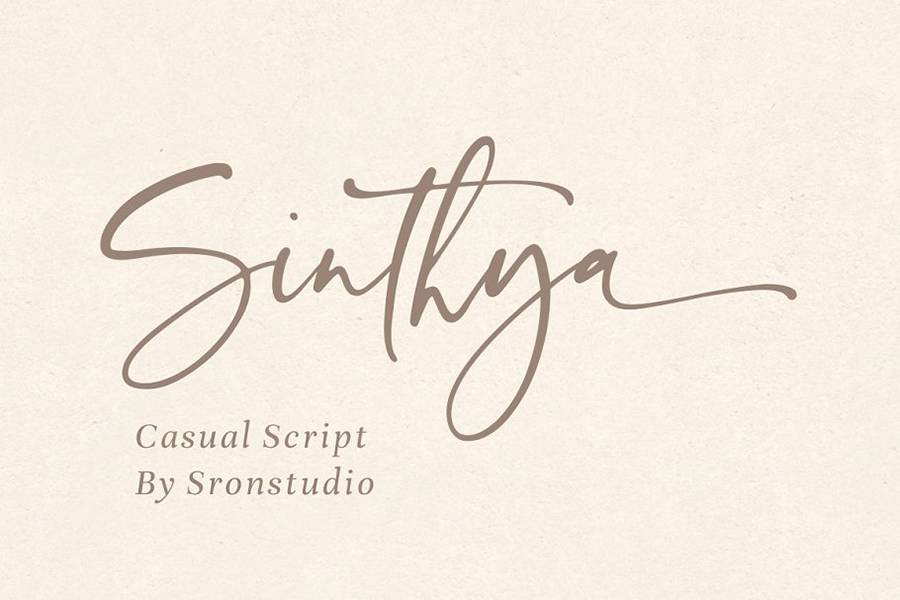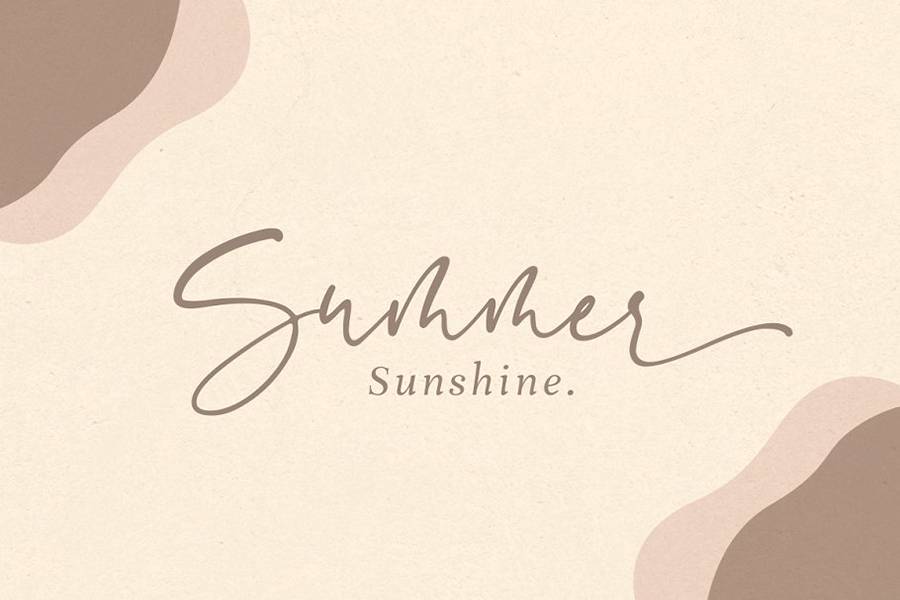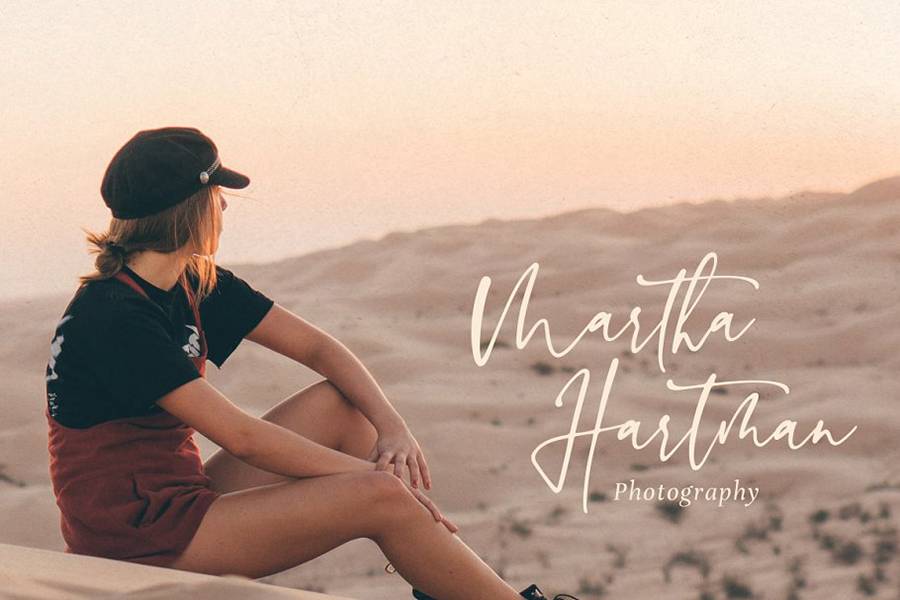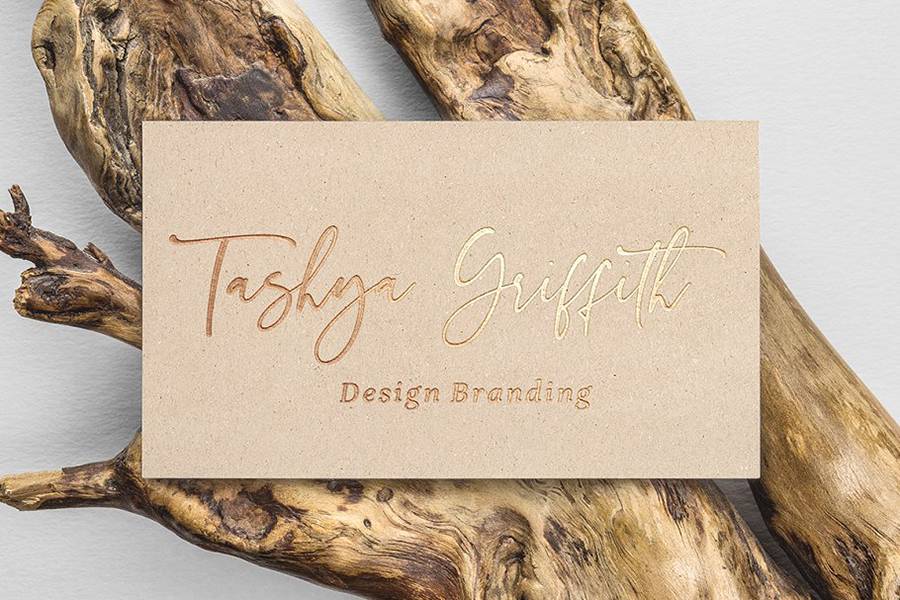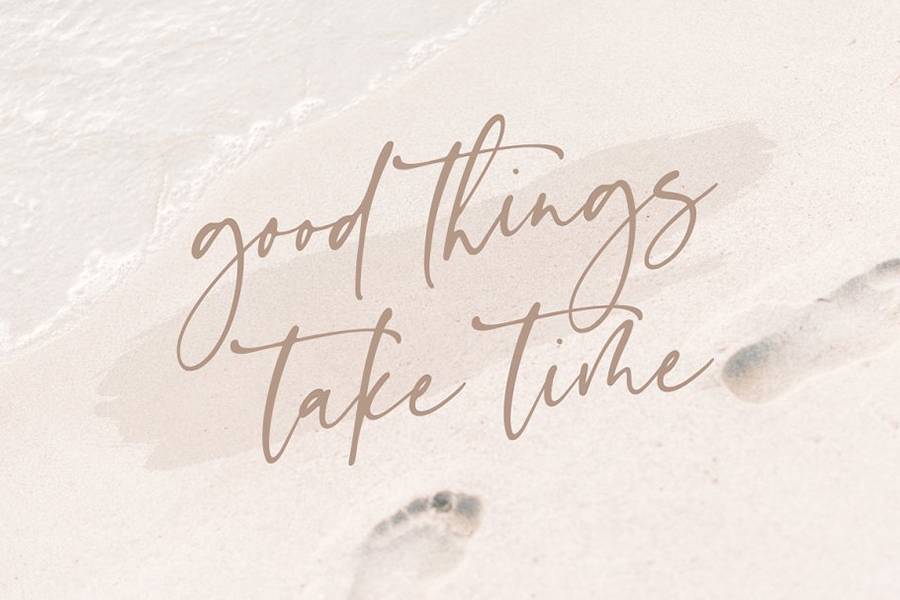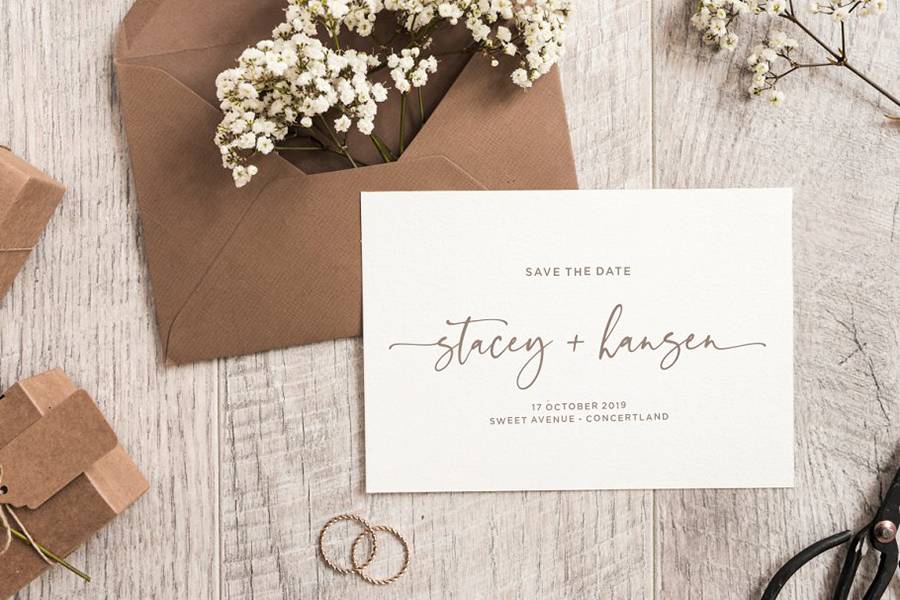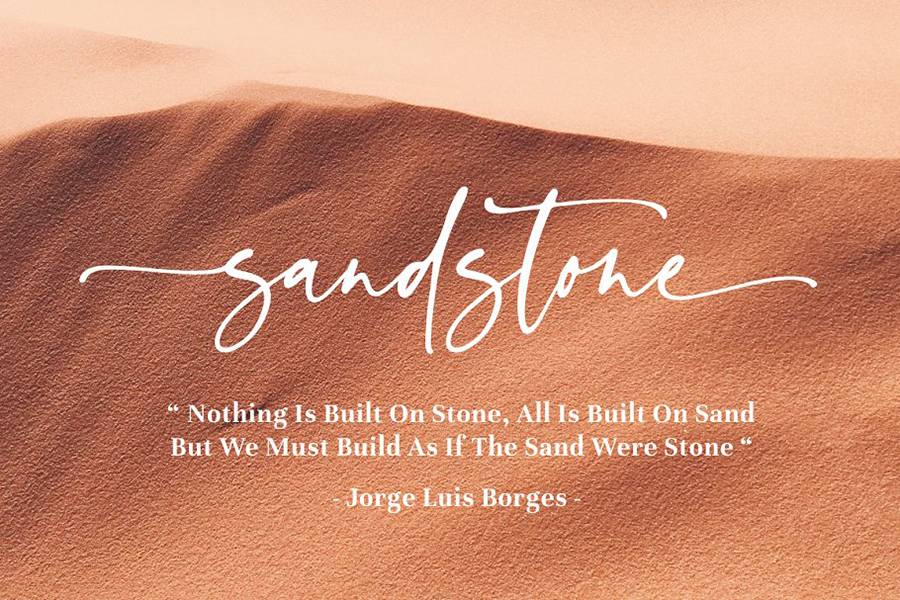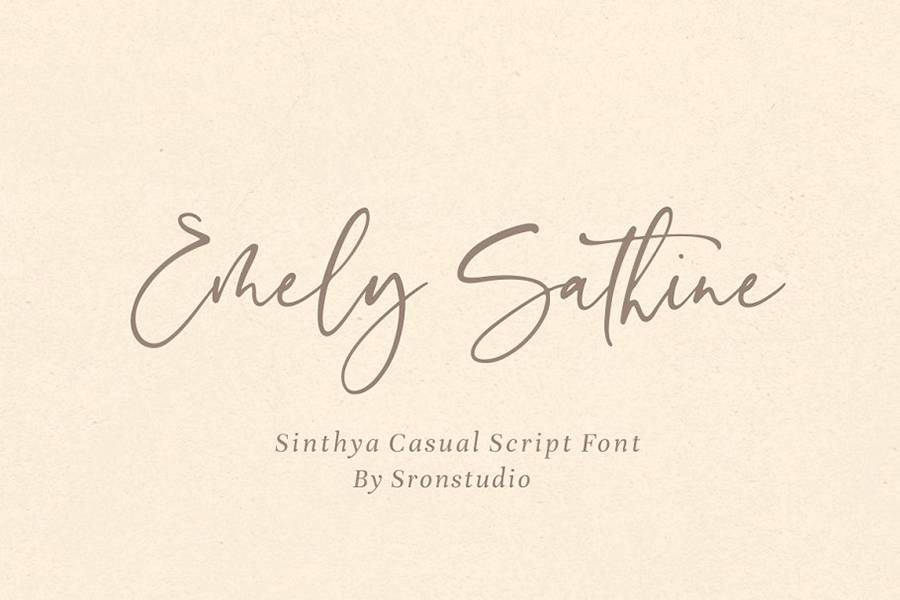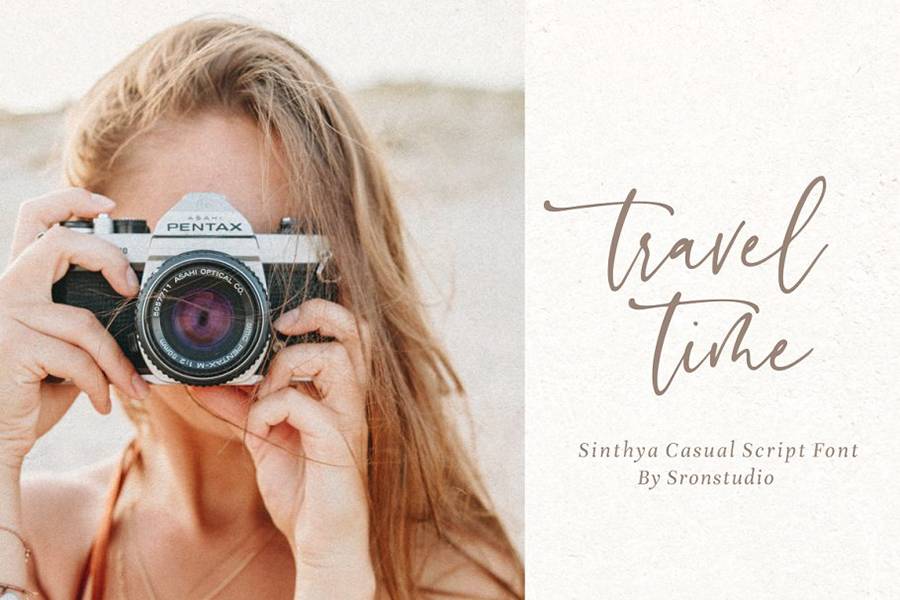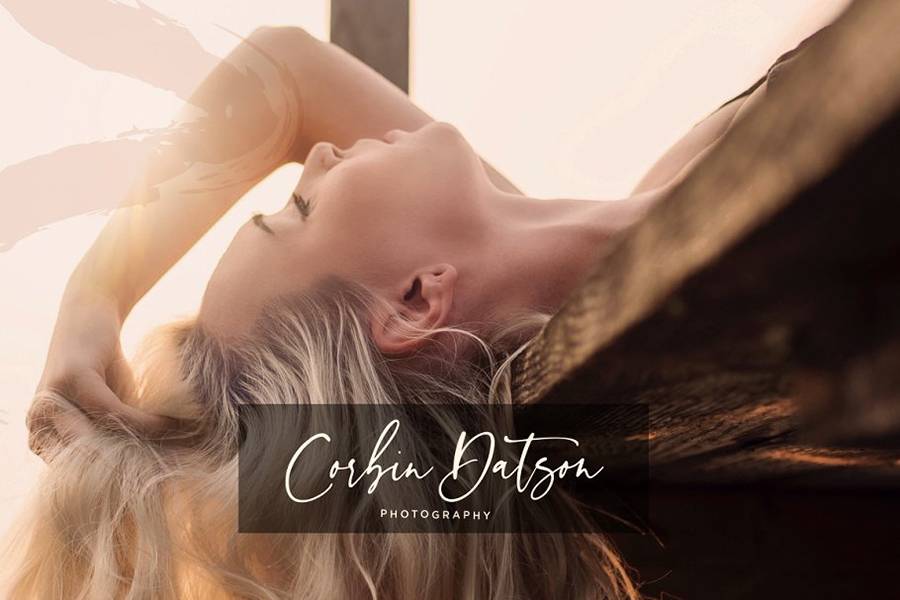
Sinthya Casual Script Demo is a delicate and airy handwritten script font featuring flowing, connected strokes that evoke a natural, personal touch. Its thin, elegant lines and slightly uneven letterforms create a warm and inviting feel, making it ideal for branding, invitations, and editorial designs that seek a stylish yet approachable look. This font works beautifully in creative projects where a casual, refined script adds personality and charm without overwhelming the content.
Sinthya Casual Script Demo
About Sinthya Casual Script Demo
| Font family | Sinthya Casual Script Demo |
| Designer | Sronstudio |